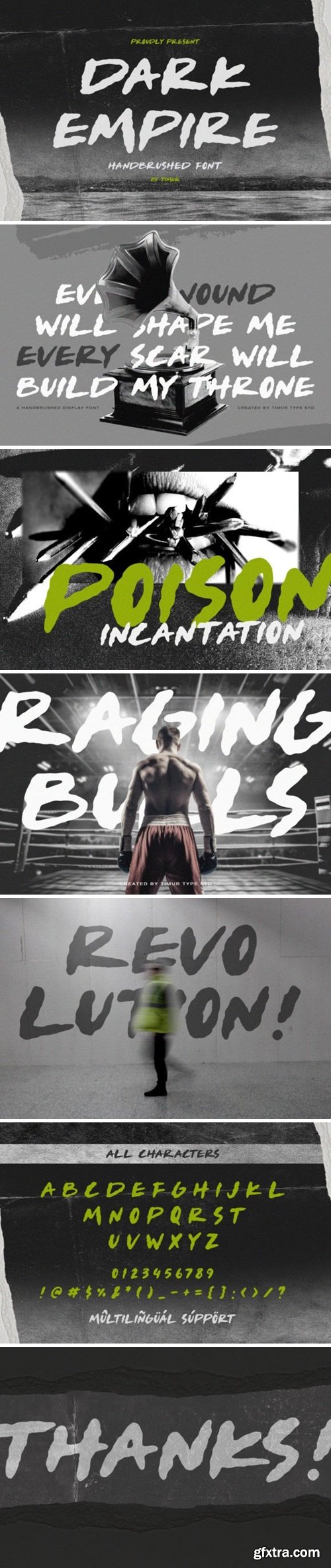
暗帝国字体
Dark Empire is a cool and modern hand-brushed font that channels the rebellious spirit of contemporary design. With bold strokes and an edgy vibe, it captures a sense of urban sophistication. Ideal for projects seeking a sleek and rebelliously stylish aesthetic, Dark Empire brings a bold and confident flair to your creative expressions.